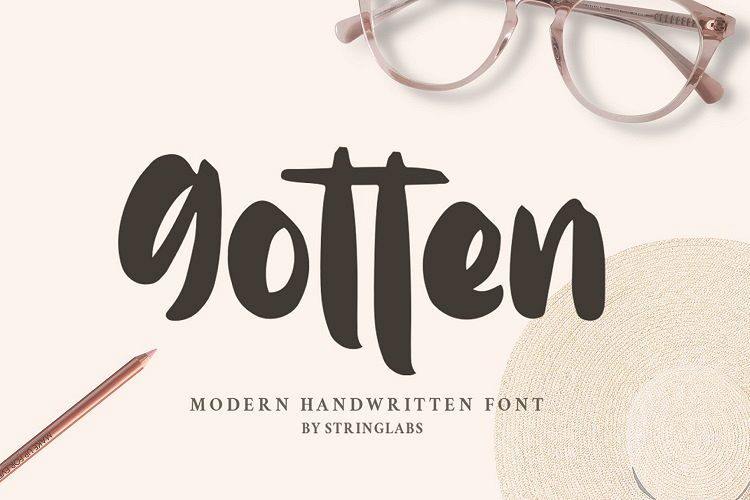
Gotten - Modern Handwritten Font
Gotten
Introducing Gotten - Modern Handwritten Font
Gotten combines authenticity and elegance into one truly stunning script. Use it to turn any design project into a true piece of art!
This Font Template contains Modern, Elegant, creative, Professional and Unique Concept.